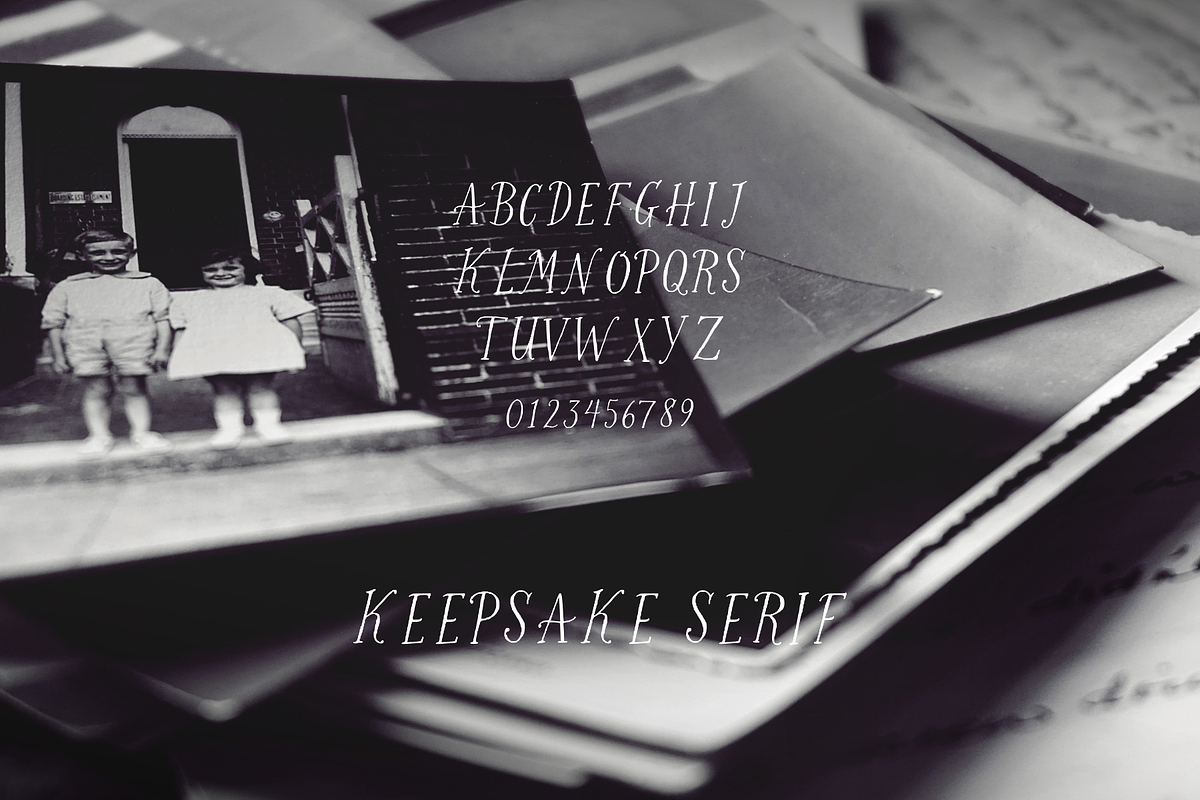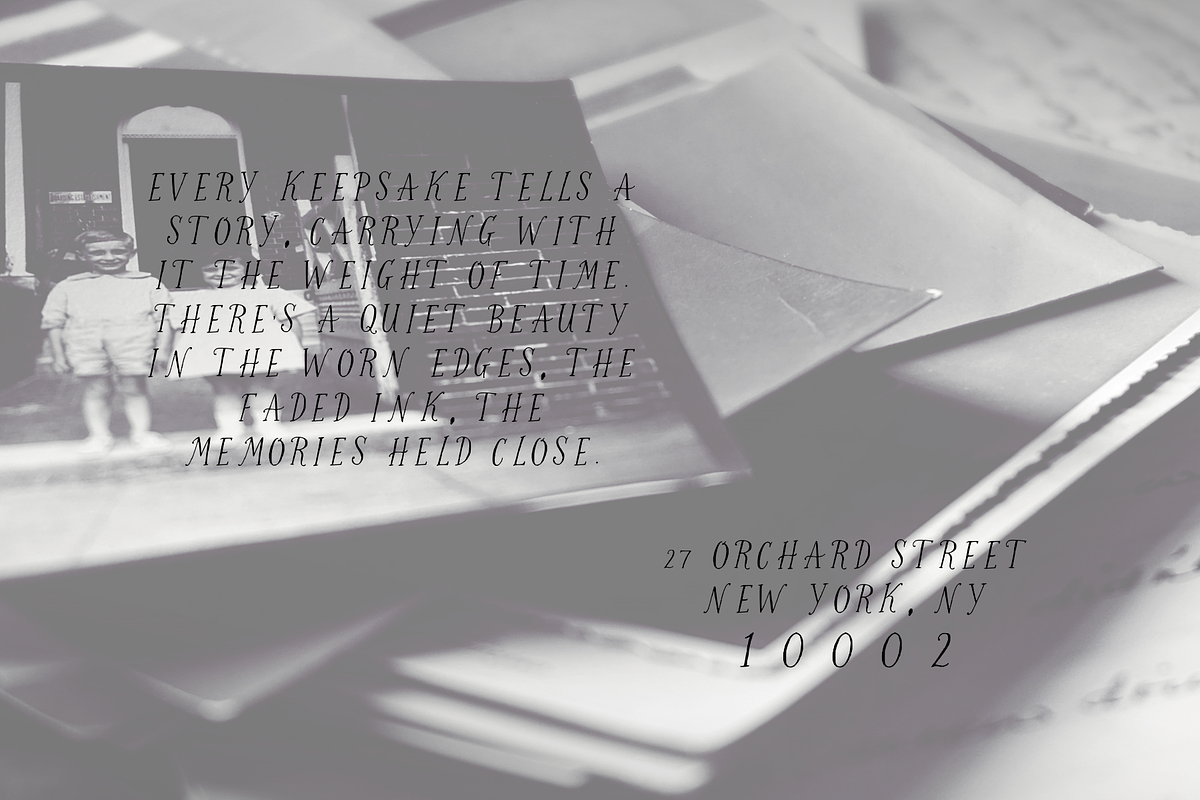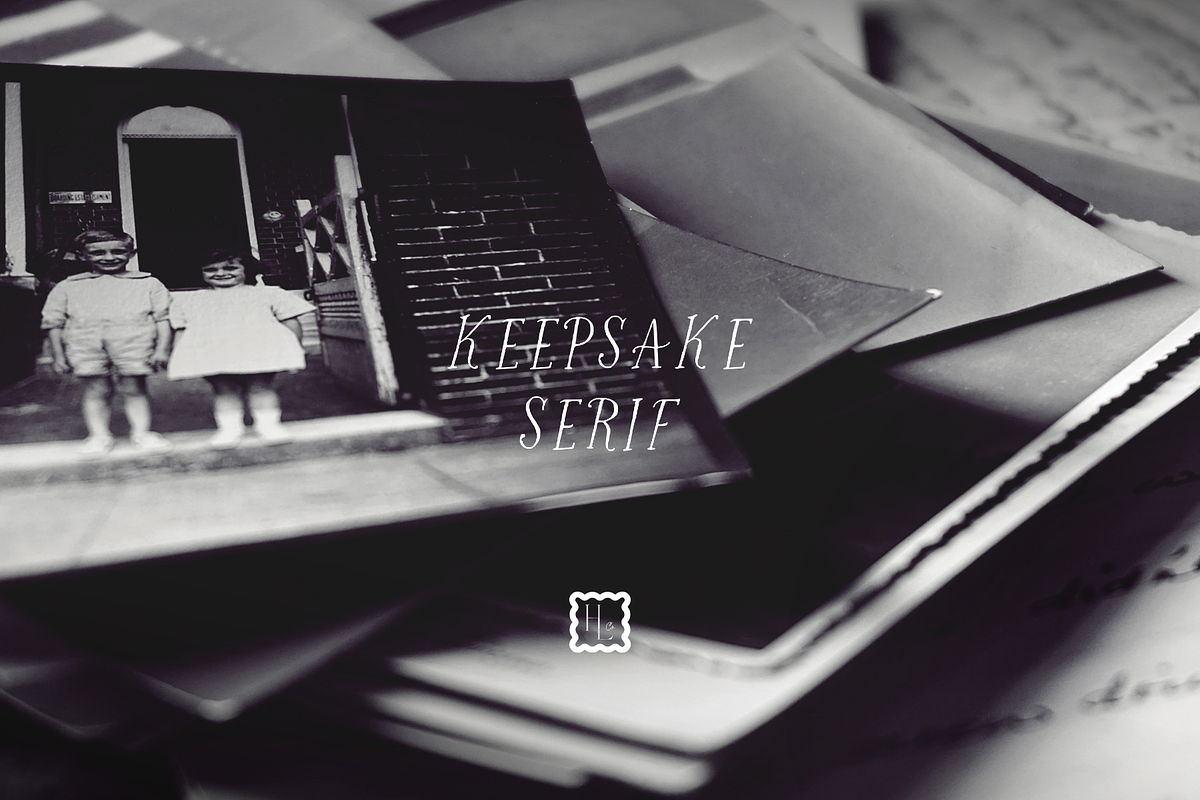
Keepsake Serif
Keepsake Serif is a whimsical, nostalgic typeface that balances thin strokes with subtle areas of boldness, creating a timeless hand-drawn charm. Its slightly imperfect, handwritten quality evokes the feeling of cherished letters and heirloom notes—organic, playful, and beautiful in its simplicity. Perfect for wedding stationery, logos, and designs that call for a touch of sentiment and personality. Featuring A–Z, numbers, and simple symbols, Includes both TTF and OTF file formats for easy use.